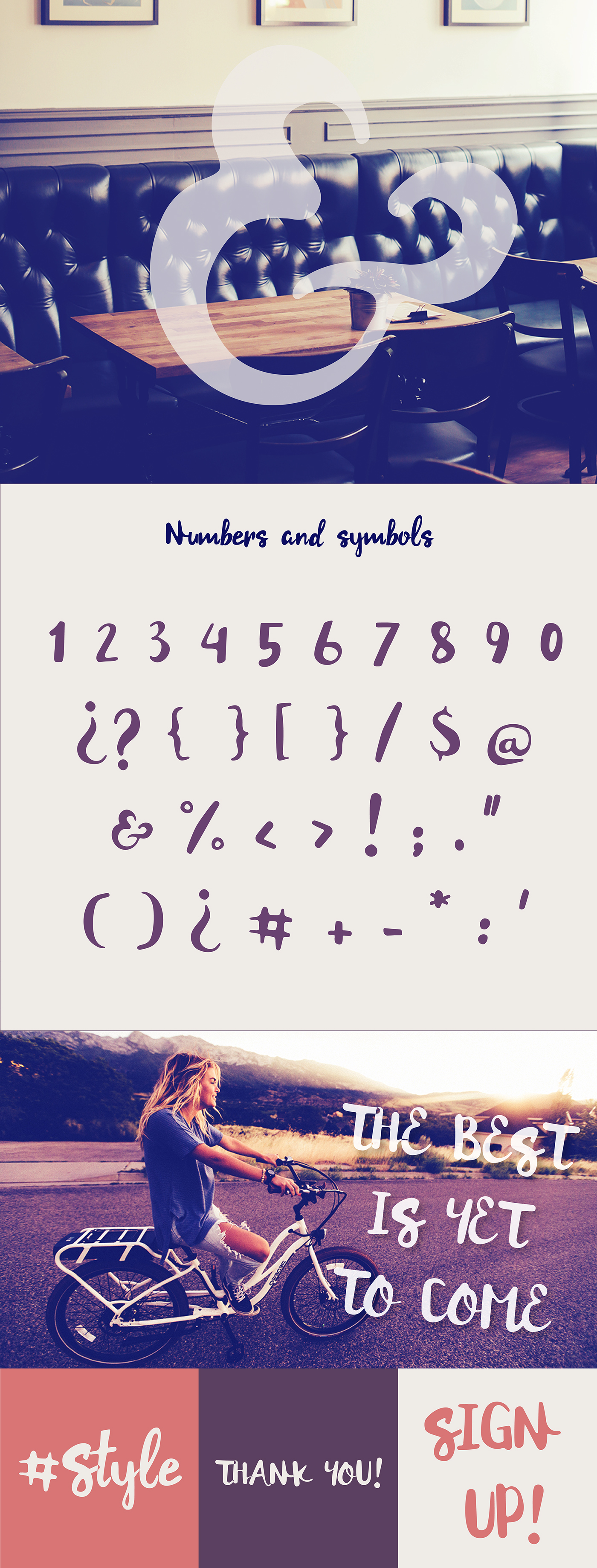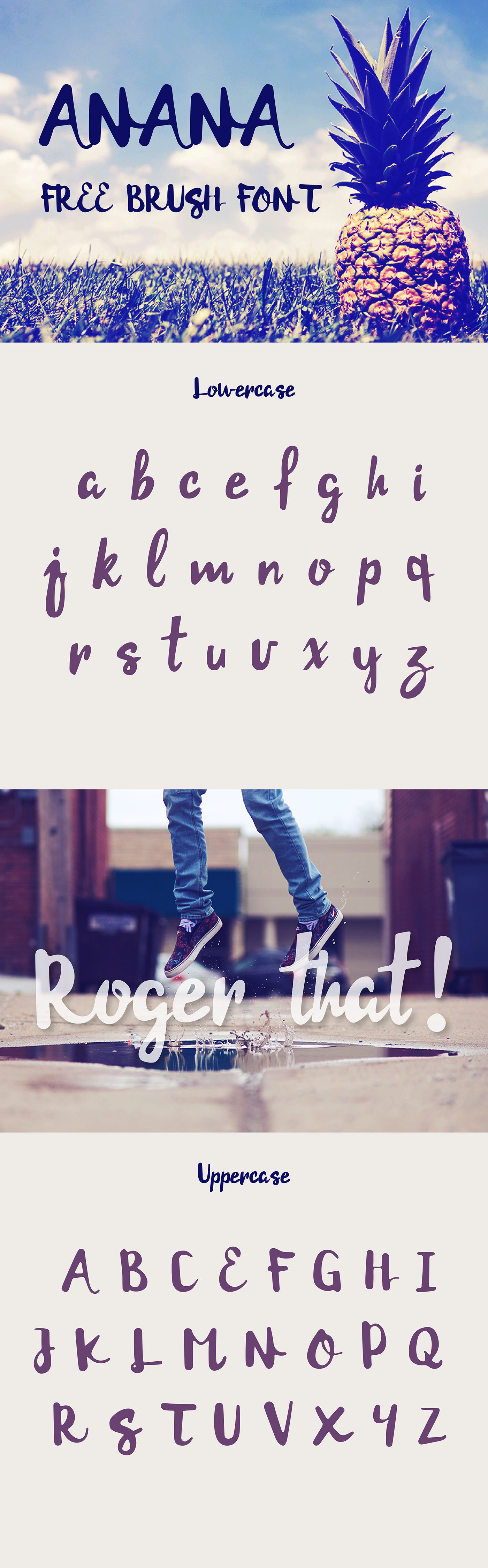
Anana Free brush font
Introducing you to a very beautiful brush font, shared by Mariana Leyton
Anana Font sure to make you feel comfortable, it is suitable for all of the design, printing, advertising banners, wedding invitations …